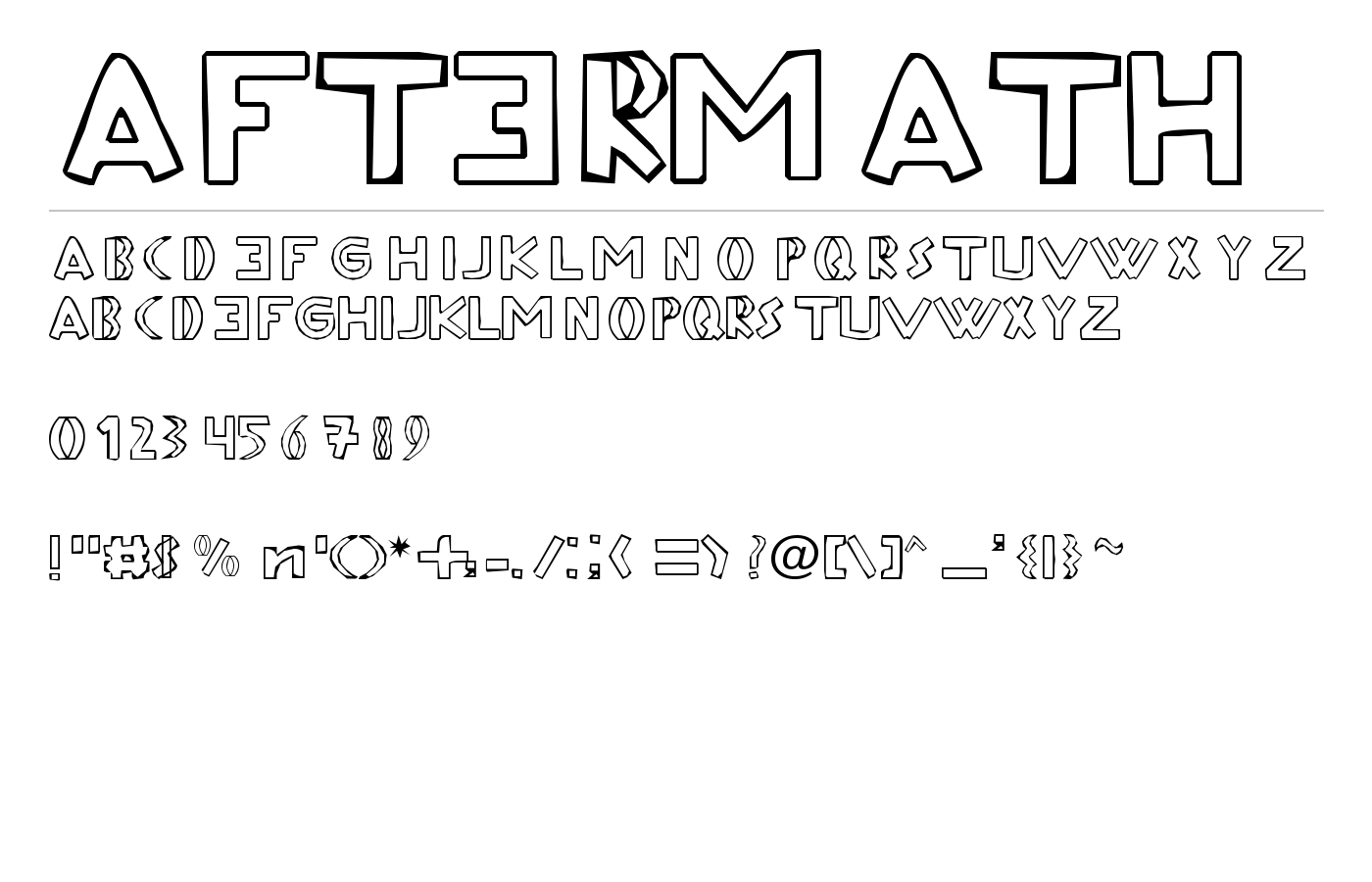
Aftermath is a bold, playful sans serif font with a hand-drawn, slightly irregular style that gives it a casual and dynamic feel. Its unique letterforms and uneven outlines lend a creative, adventurous personality perfect for energetic branding and eye-catching headlines. This font works well in projects seeking a friendly, artistic vibe such as posters, logos, and informal editorial layouts.
Aftermath Font
About Aftermath Font
| Font family | Aftermath Font |
| Designer | Kubik Juice |